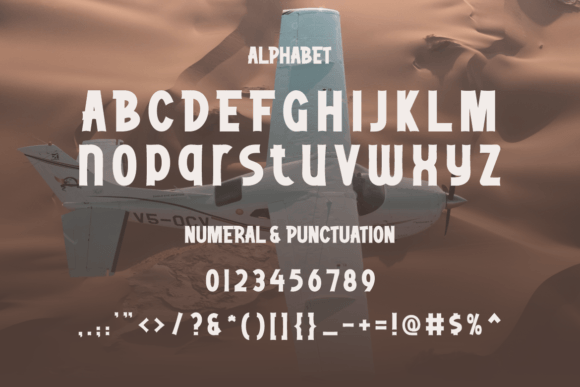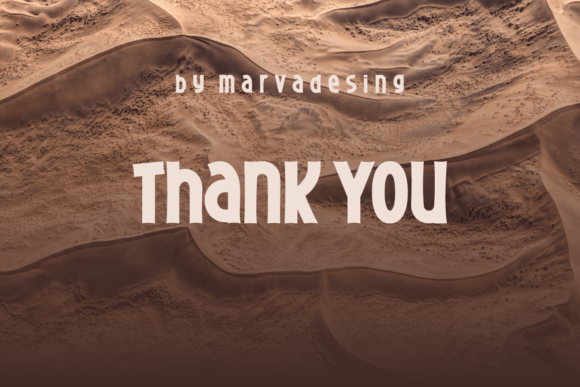
Unleash Your Creativity with Aprosse Font
You’ve finally landed on the perfect concept for your next design project – a bold, eye-catching headline that demands attention. The ideas are flowing, but the right font has been eluding you. What if you could bring your vision to life with a single, stylish choice?
Enter Aprosse Font, a modern display font designed to elevate any creation. Whether you’re crafting a logo, designing a magazine cover, or building a brand identity, Aprosse Font is the perfect companion for your artistic endeavors. Its versatility and sleek aesthetic make it a valuable asset for designers seeking to add a touch of sophistication to their work.
With Aprosse Font in your toolkit, the possibilities are endless, and your designs will surely stand out from the crowd. Discover the limitless potential of this incredible font and take your creative projects to the next level.
Key Features of Aprosse Font
- Unique Characteristics: Aprosse Font features a distinctive, modern design with clean lines, geometric shapes, and a sans-serif aesthetic, making it perfect for digital and print media applications.
Aprosse Font Review
I recently had the chance to work with the Aprosse font, and I have to say it’s been a mixed bag. On the one hand, it’s got some great qualities that make it a solid choice for certain projects.
- ✨ **Unique style**: Aprosse has a distinctive, modern feel that sets it apart from more traditional fonts. It’s perfect for designers who want to add a touch of sophistication to their work.
- ✨ **Good legibility**: Despite its modern look, Aprosse is surprisingly easy to read, even at smaller sizes.
- ✨ **Versatile**: Aprosse comes in a range of weights and styles, making it easy to use in a variety of contexts.
However, there are some limitations that might make it less appealing to some designers.
- ⚠️ **Limited character set**: Aprosse’s character set is relatively small, which can be a problem if you need to typeset text in multiple languages.
- ⚠️ **Not ideal for body text**: While Aprosse is great for headlines and titles, it’s not the best choice for large blocks of body text.
Overall, I think Aprosse is a solid choice for designers who want to add some visual interest to their work. Just be aware of its limitations, and use it judiciously.
Approse Font is a versatile font suitable for various use cases, including:
– Creating elegant and modern designs
– Adding a touch of sophistication to business documents
– Designing invitations and other event materials